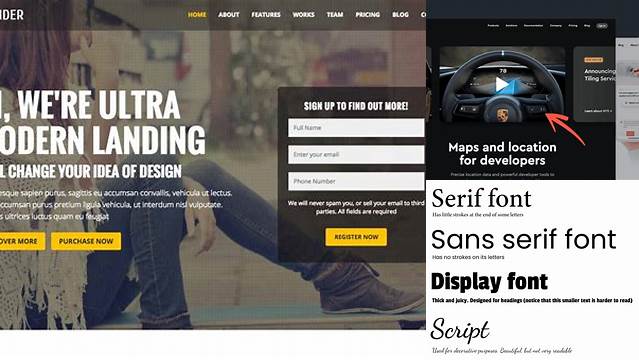
Best Fonts For Landing Page: Boost Conversions
Introduction: The Power of Typography in Landing Page Design
Hey guys! Let's dive into the crucial world of typography when it comes to crafting killer website landing pages. Choosing the right fonts isn't just about making things look pretty; it's about creating a user experience that's both engaging and effective. Think of fonts as the voice of your brand – they communicate personality, set the tone, and ultimately, influence whether a visitor sticks around or bounces. So, if you're looking to boost conversions and make a lasting impression, mastering the art of font selection is a must.
Typography is a cornerstone of design, playing a pivotal role in how your message is perceived. The fonts you select influence readability, scannability, and the overall aesthetic appeal of your landing page. A well-chosen font can guide the user's eye, highlight key information, and create a visual hierarchy that makes your content easily digestible. Conversely, a poorly chosen font can lead to a confusing and frustrating experience, driving potential customers away. In essence, typography is not just about aesthetics; it's about communication. It’s about making sure your message is not only seen but also felt and understood. The right font aligns with your brand's identity, reinforcing its values and personality. Imagine a sleek, modern tech company using a whimsical, handwritten font – it just wouldn't fit, would it? Consistency in typography across your landing page, and indeed your entire website, builds brand recognition and trustworthiness. When your brand has a clear visual voice, it's easier for your audience to connect with you. Let's also talk about the emotional impact of fonts. Different fonts evoke different feelings. A serif font might convey tradition and reliability, while a sans-serif font often feels modern and clean. A script font can add a touch of elegance or creativity. Understanding these nuances allows you to select fonts that resonate with your target audience and reinforce the emotions you want to evoke. For instance, a landing page for a luxury product might use a sophisticated serif font to convey elegance and exclusivity, while a landing page for a tech startup might opt for a clean, sans-serif font to project innovation and simplicity. Finally, consider the technical aspects of font selection. Not all fonts are created equal when it comes to web performance. Some fonts can significantly slow down your page load time, which is a major no-no in today's fast-paced digital world. Choosing web-safe fonts or optimizing your font files is crucial for ensuring a smooth and speedy user experience. So, let’s not underestimate the power of typography. It's an essential element of landing page design that requires careful consideration and strategic decision-making. Get it right, and you'll be well on your way to creating landing pages that convert!
Understanding Font Types: Serif, Sans-Serif, and More
Okay, let's break down the different types of fonts out there. Knowing the difference between serif, sans-serif, and other font categories is key to making informed decisions for your landing page. Each type has its own personality and best-use cases, so let's get acquainted!
Let’s start with serif fonts. These fonts are characterized by small decorative strokes, or “serifs,” at the end of each letter. Think of classic fonts like Times New Roman or Georgia. Serif fonts often convey a sense of tradition, authority, and sophistication. They're frequently used in headlines, body text in print, and websites aiming for a more formal or classic feel. On a landing page, a serif font can add a touch of elegance and trustworthiness, making it a great choice for brands that want to project a sense of history or reliability. For example, if you're designing a landing page for a financial institution or a luxury brand, a well-chosen serif font can reinforce your credibility and sophistication. The serifs themselves can also subtly guide the reader’s eye, making long passages of text easier to read in print. However, it's worth noting that serif fonts can sometimes appear cluttered on screens, especially at smaller sizes or lower resolutions. That's why it's essential to choose a serif font that's specifically designed for web use, with clear and well-defined characters that maintain readability even at smaller sizes. Good examples of web-friendly serif fonts include Merriweather, Playfair Display, and Roboto Slab. When using a serif font on your landing page, consider pairing it with a sans-serif font for headings or call-to-action buttons to create a visual contrast and hierarchy. This combination can help to draw the user's attention to the most important elements of your page while maintaining an overall sense of elegance and professionalism.
Now, let's move on to sans-serif fonts. As the name suggests, these fonts don't have the little decorative strokes that serif fonts do. They're clean, modern, and often considered more readable on screens. Popular sans-serif fonts include Arial, Helvetica, and Open Sans. Sans-serif fonts are fantastic for websites, particularly for body text and headlines where clarity is crucial. Their simplicity makes them easy to read, even at small sizes, and they lend a contemporary feel to your design. A landing page that uses a sans-serif font often projects a sense of innovation, efficiency, and approachability. This makes them a popular choice for tech companies, startups, and businesses that want to convey a forward-thinking image. The clean lines of sans-serif fonts also make them highly versatile. They pair well with a variety of other font styles and can be used effectively in a wide range of designs, from minimalist layouts to more complex and visually rich pages. When selecting a sans-serif font for your landing page, consider the overall tone and message you want to convey. A font like Open Sans, for example, is highly readable and neutral, making it a great choice for body text and longer passages. A bolder, more geometric sans-serif font, such as Montserrat or Bebas Neue, can be used for headings and call-to-action buttons to create a strong visual impact. Remember, the key is to choose a font that not only looks good but also aligns with your brand’s personality and the needs of your audience. Sans-serif fonts are also an excellent choice for mobile-friendly designs, as their clarity and readability make them easy to view on smaller screens. This is particularly important for landing pages, where a seamless mobile experience is crucial for driving conversions.
Beyond serif and sans-serif, we have a world of other font categories to explore, each with its unique characteristics and applications. Script fonts, for instance, mimic handwriting and can add a touch of elegance, creativity, or personality to your landing page. They're often used for logos, headings, or accents, but should be used sparingly to avoid readability issues. Imagine a script font used for the name of a wedding photography business or a handwritten-style font for a bakery's logo – they can add a personal and inviting touch. However, it's crucial to remember that script fonts can be difficult to read in large blocks of text or at smaller sizes. Therefore, they are best reserved for short, impactful elements where legibility is less of a concern. When using a script font, consider pairing it with a simple sans-serif font for the body text to ensure a balance between visual interest and readability.
Then there are display fonts, which are designed to be eye-catching and attention-grabbing. These fonts come in a wide range of styles, from bold and geometric to playful and whimsical. Display fonts are perfect for headings, banners, and other prominent elements where you want to make a statement. However, like script fonts, they should be used judiciously, as they can overwhelm a design if overused. Think of a vintage-inspired display font for a retro-themed landing page or a bold, futuristic font for a tech startup’s website. The key is to choose a display font that aligns with your brand’s personality and the overall aesthetic of your landing page. When using a display font, ensure that it contrasts effectively with the other fonts on your page and that it doesn't detract from the overall readability of your content.
Finally, let's not forget about monospace fonts. These fonts have characters that each take up the same amount of horizontal space, giving them a distinct, typewriter-like appearance. Monospace fonts are often used for code snippets, technical documentation, or to create a retro or industrial feel. While they aren't typically used for body text, they can be effective for specific elements or to add a unique touch to your design. For instance, a landing page for a software development company might use a monospace font for code examples or to highlight technical specifications. In summary, understanding the different font types is essential for creating effective landing pages. Each font category has its unique strengths and weaknesses, and the best choice depends on your brand’s personality, the message you want to convey, and the overall design aesthetic you’re aiming for. By carefully considering the characteristics of serif, sans-serif, script, display, and monospace fonts, you can create a visually compelling and highly readable landing page that resonates with your audience.
Best Font Practices for Landing Page Conversion
Now, let's talk about the best practices for choosing fonts that actually boost your landing page's conversion rates. It's not just about picking a font you like; it's about picking fonts that work together to create a seamless and effective user experience. Let’s dive in!
One of the most crucial aspects of font selection for landing page conversion is readability. If your visitors can't easily read your content, they're not going to stick around, no matter how compelling your offer is. Readability encompasses several factors, including font size, line height, letter spacing, and the overall clarity of the font itself. When choosing a font for your body text, opt for one that is clean and easy to read at a variety of sizes. Sans-serif fonts, such as Open Sans, Roboto, and Lato, are often excellent choices for body text due to their simplicity and clarity. However, some serif fonts, like Merriweather and Georgia, can also be highly readable, especially when designed specifically for web use. The key is to test your font choices on different devices and screen sizes to ensure that they remain legible in all contexts. Pay close attention to how the font renders on mobile devices, as a significant portion of your traffic likely comes from mobile users. In addition to font choice, consider the size of your text. Body text should generally be between 16 and 18 pixels for optimal readability on desktop screens, and slightly larger on mobile devices. Headings should be proportionally larger to create a clear visual hierarchy and draw the user’s attention to the most important information. Line height, or the spacing between lines of text, also plays a crucial role in readability. A line height that is too tight can make text feel cramped and difficult to read, while a line height that is too wide can make it hard for the eye to track from one line to the next. A good rule of thumb is to set your line height to around 1.5 times the font size. Letter spacing, or the space between individual characters, can also affect readability. Slightly increasing letter spacing can improve the clarity of a font, especially for headings and larger text elements. By prioritizing readability in your font choices, you can ensure that your visitors can easily digest your message, which is a critical step in driving conversions. A clear and readable landing page conveys professionalism and builds trust with your audience, making them more likely to engage with your content and take the desired action.
Another key aspect of font selection for landing page conversion is font pairing. Choosing the right combination of fonts can create a visual harmony that enhances the overall aesthetic appeal of your page and guides the user’s eye effectively. The general rule of thumb is to use no more than two or three different fonts on a single landing page. This helps to maintain a consistent and professional look while still allowing for visual contrast and emphasis. When pairing fonts, it's often a good idea to choose one font for headings and another for body text. This creates a clear visual hierarchy and makes it easier for users to scan and understand your content. A common approach is to pair a sans-serif font for headings with a serif font for body text, or vice versa. For example, you might pair a bold sans-serif font like Montserrat for headings with a readable serif font like Merriweather for body text. This combination provides a good balance between visual impact and readability. Another popular pairing is to use different weights of the same font family. For instance, you could use a bold version of Open Sans for headings and a regular version for body text. This creates a cohesive look while still providing sufficient visual contrast. When selecting font pairings, consider the overall tone and message you want to convey. Different font combinations evoke different feelings, so it's important to choose pairings that align with your brand’s personality and the purpose of your landing page. A clean and modern design might benefit from a pairing of two sans-serif fonts, while a more traditional or elegant design might call for a serif and sans-serif combination. Experiment with different pairings and test them with your target audience to see what resonates best. There are also many online tools and resources available that can help you find effective font pairings. These tools often provide suggestions based on font classifications, styles, and historical usage, making it easier to create a visually appealing and effective design.
Beyond readability and font pairing, consider the emotional impact of your font choices. Different fonts evoke different feelings and associations, so it's important to choose fonts that align with your brand’s personality and the message you want to convey. A font that feels serious and professional might be perfect for a landing page promoting financial services, while a more playful and whimsical font might be better suited for a page advertising children’s toys. When selecting fonts, think about the emotions you want to evoke in your visitors. Do you want them to feel confident and secure? Excited and energized? Calm and reassured? The fonts you choose can play a significant role in shaping these emotions. For example, a classic serif font like Times New Roman might convey a sense of tradition, authority, and reliability. This makes it a good choice for brands that want to project a sense of stability and trustworthiness. On the other hand, a clean and modern sans-serif font like Helvetica might evoke feelings of innovation, efficiency, and approachability. This makes it a popular choice for tech companies and startups. Script fonts can add a touch of elegance, creativity, or personality to your landing page. However, they should be used sparingly, as they can be difficult to read in large blocks of text. A script font might be perfect for a heading or a call-to-action button, but it's generally not a good choice for body text. Display fonts, which are designed to be eye-catching and attention-grabbing, can be used to make a bold statement. However, like script fonts, they should be used judiciously to avoid overwhelming the design. When choosing fonts based on their emotional impact, consider your target audience and their preferences. What fonts are they likely to respond to? What emotions do you want to evoke in them? By carefully considering these factors, you can choose fonts that not only look good but also effectively communicate your message and resonate with your audience. Remember, your landing page is an opportunity to make a strong first impression, and the fonts you choose play a crucial role in shaping that impression.
Finally, test your fonts! What works in theory might not work in practice. A/B testing different font combinations can give you valuable insights into what resonates best with your audience. Don’t be afraid to experiment and see what drives the most conversions.
Font Resources and Tools
Alright, so where can you actually find these awesome fonts and what tools can help you put them to work? There's a ton of resources out there, both free and paid, to help you create the perfect typographic landscape for your landing page. Let's explore some of the best!
First off, let's talk about Google Fonts. This is a fantastic resource that offers a massive library of free, open-source fonts that are perfect for web use. Google Fonts is a go-to resource for designers and developers because it provides a vast selection of high-quality fonts that are easy to integrate into any website. The fonts are meticulously curated and optimized for web performance, ensuring that they load quickly and render correctly across different browsers and devices. One of the biggest advantages of using Google Fonts is its ease of use. You can simply browse the library, select the fonts you like, and embed them into your website with a few lines of code. Google Fonts also provides detailed information about each font, including its designer, style classifications, and popular pairings, making it easier to choose fonts that align with your design goals. The library is continually updated with new fonts, so there's always something fresh and exciting to discover. Whether you're looking for a classic serif font, a modern sans-serif font, or a unique display font, Google Fonts has something to offer. In addition to the vast selection of fonts, Google Fonts also provides tools for previewing and testing fonts, allowing you to see how they look in different contexts and at different sizes. You can customize the text, size, and color of the preview to get a clear idea of how the font will look on your landing page. This is a valuable feature that helps you make informed decisions and avoid font choices that might not work well in your design. Google Fonts also integrates seamlessly with popular web design platforms and content management systems, such as WordPress, making it even easier to incorporate these fonts into your website. With its extensive library, ease of use, and commitment to quality, Google Fonts is an indispensable resource for anyone looking to improve the typography of their landing page. It's a cost-effective and reliable solution that can help you create a visually appealing and highly readable design.
Then there's Adobe Fonts, which is part of the Adobe Creative Cloud subscription. Adobe Fonts provides access to thousands of high-quality fonts from leading foundries, making it a premium option for designers who demand the best. One of the standout features of Adobe Fonts is its seamless integration with Adobe Creative Cloud applications, such as Photoshop, Illustrator, and InDesign. This means you can easily access and use these fonts in your design projects without having to download or install them separately. The fonts are available for both desktop and web use, giving you the flexibility to use them in a variety of contexts. The library at Adobe Fonts is incredibly diverse, offering a wide range of styles, classifications, and languages. Whether you're looking for a classic serif font, a modern sans-serif font, a decorative script font, or a unique display font, you're sure to find something that meets your needs. Adobe Fonts also includes exclusive fonts from renowned type designers and foundries, giving you access to unique and high-quality typography that you won't find anywhere else. In addition to the vast font library, Adobe Fonts provides advanced search and filtering options, making it easy to find the perfect font for your project. You can filter fonts by style, classification, weight, width, and other criteria, allowing you to narrow down your choices and find the ideal font for your specific design requirements. Adobe Fonts also offers detailed information about each font, including its designer, style classifications, and usage recommendations, helping you make informed decisions and create effective typographic designs. The service is constantly updated with new fonts, ensuring that you always have access to the latest and greatest typography. If you're a professional designer or someone who is serious about typography, Adobe Fonts is an excellent investment. The subscription-based model provides access to a vast library of high-quality fonts, seamless integration with Adobe Creative Cloud applications, and advanced search and filtering options, making it a powerful tool for creating visually stunning and effective designs. With its commitment to quality and innovation, Adobe Fonts is a valuable resource for anyone looking to elevate their typography.
Beyond these big players, there are also sites like Font Squirrel and MyFonts, which offer a mix of free and paid fonts. Font Squirrel is a great resource for finding high-quality free fonts that are licensed for commercial use, making it a valuable tool for designers on a budget. The site carefully curates its collection, ensuring that all the fonts meet a high standard of quality and are legally available for commercial projects. One of the standout features of Font Squirrel is its Font Identifier tool, which allows you to upload an image of a font and identify it. This is incredibly useful if you come across a font that you like but don't know the name of. The tool uses advanced image recognition technology to analyze the font and provide a list of possible matches. Font Squirrel also offers a Webfont Generator, which helps you create web-optimized versions of your fonts. This is essential for ensuring that your fonts load quickly and render correctly on different browsers and devices. The generator supports a variety of font formats, including WOFF, WOFF2, EOT, and SVG, allowing you to create a comprehensive set of web fonts for your project. The site's interface is clean and easy to navigate, making it simple to browse and discover new fonts. You can filter fonts by style, classification, and other criteria, making it easier to find the perfect font for your needs. Font Squirrel also provides detailed information about each font, including its license, designer, and usage recommendations. If you're looking for high-quality free fonts for your commercial projects, Font Squirrel is definitely worth checking out. Its curated collection, Font Identifier tool, and Webfont Generator make it a valuable resource for designers of all levels.
MyFonts, on the other hand, is a leading marketplace for commercial fonts, offering a vast selection of typography from independent foundries and type designers. The site is known for its extensive library, user-friendly interface, and helpful customer support. One of the standout features of MyFonts is its WhatTheFont tool, which, like Font Squirrel's Font Identifier, allows you to upload an image of a font and identify it. This is a powerful tool for designers who need to find a specific font or want to match a font used in an existing design. MyFonts offers a wide range of search and filtering options, making it easy to find the perfect font for your project. You can filter fonts by style, classification, weight, width, and other criteria, allowing you to narrow down your choices and find the ideal typography for your needs. The site also provides detailed information about each font, including its designer, style classifications, and usage recommendations. In addition to its vast font library, MyFonts offers a variety of resources and tools for designers, including articles, tutorials, and case studies. These resources can help you learn more about typography and improve your design skills. MyFonts is a go-to resource for professional designers and typographers, but it's also a great option for anyone who is looking for high-quality commercial fonts. The site's extensive library, user-friendly interface, and helpful tools make it a valuable resource for creating visually stunning and effective designs. Whether you're working on a website, a print project, or any other type of design, MyFonts has the typography you need.
As for tools, check out online font pairing generators and websites that let you preview fonts in different contexts. These can be lifesavers when you're trying to visualize how a font will look on your landing page. Some popular tools include FontPair, which helps you find effective font combinations, and Typecast, which allows you to design and test typography in a browser-based environment. FontPair is a simple yet powerful tool that helps you find complementary fonts for your design projects. The site features a curated collection of font pairings, showcasing different combinations of serif, sans-serif, and other font styles. Each pairing includes the names of the fonts and a preview of how they look together, making it easy to find a combination that suits your needs. FontPair also allows you to filter pairings by classification, such as serif-sans serif, sans serif-sans serif, and more, helping you narrow down your choices and find the perfect typography for your project. The site is incredibly user-friendly, with a clean and intuitive interface that makes it easy to browse and discover new font combinations. Whether you're a professional designer or a beginner, FontPair is a valuable resource for creating visually appealing and effective typographic designs. By exploring different font pairings, you can learn more about typography and develop your eye for design.
Typecast, on the other hand, is a more comprehensive tool that allows you to design and test typography in a realistic browser environment. The platform provides a wide range of features for creating and experimenting with typography, including font selection, sizing, spacing, and styling options. One of the standout features of Typecast is its ability to simulate how fonts will render in different browsers and on different devices. This is crucial for ensuring that your typography looks consistent and legible across all platforms. Typecast also allows you to create typographic style guides, which can be used to document and share your font choices with clients and collaborators. The platform provides a collaborative workspace where you can share your designs, get feedback, and iterate on your typography. Typecast is a powerful tool for professional designers and typographers who need to create and test complex typographic designs. The platform's comprehensive features and realistic browser simulation make it an invaluable resource for ensuring that your typography looks its best in any context. Whether you're working on a website, a web application, or any other type of digital design, Typecast can help you create visually stunning and effective typography.
With all these resources at your fingertips, there's no excuse for settling for subpar fonts on your landing page! Take the time to explore, experiment, and find the perfect typographic voice for your brand.
Conclusion: Make Your Fonts Work for You
So, there you have it! Fonts are a fundamental part of your landing page's success. By understanding font types, following best practices, and leveraging the available resources, you can choose fonts that not only look great but also drive conversions. Remember, your fonts are part of your brand's voice – make sure they're saying the right things! Happy designing!
Choosing the right fonts for your website landing page is an art and a science. It requires a deep understanding of typography principles, an awareness of your brand's personality, and a strategic approach to user experience. Your font choices can significantly impact how visitors perceive your brand and whether they convert into customers. Therefore, investing time and effort into selecting the right fonts is an investment in the success of your online presence. Let’s recap the key takeaways to ensure your landing page typography is on point.
First and foremost, understand the different font types. Serif fonts convey tradition and formality, while sans-serif fonts offer a modern and clean aesthetic. Script fonts add elegance and personality, and display fonts are perfect for grabbing attention. Knowing the characteristics of each font type allows you to choose fonts that align with your brand's image and the message you want to communicate. When selecting fonts, consider the overall tone and style of your landing page. Is it sleek and minimalist, or warm and inviting? Your font choices should complement the design and create a cohesive visual experience. A well-designed landing page uses typography to guide the user's eye, highlight important information, and create a clear hierarchy of content. Secondly, prioritize readability. No matter how beautiful a font is, it's useless if your visitors can't read it easily. Use legible fonts, appropriate font sizes, and sufficient line spacing to ensure a comfortable reading experience. The readability of your landing page directly impacts user engagement and conversion rates. If visitors struggle to read your content, they are likely to leave your site. Choose fonts that are optimized for web use, with clear and well-defined characters that maintain readability even at smaller sizes. Sans-serif fonts are often a good choice for body text due to their simplicity and clarity, but some serif fonts can also be highly readable when designed for the web. Pay attention to font contrast, ensuring that your text stands out against the background. Insufficient contrast can make text difficult to read, especially for users with visual impairments. A clear and readable landing page builds trust with your audience and makes them more likely to engage with your content. Thirdly, master the art of font pairing. Combining different fonts strategically can enhance visual interest and create a balanced design. A common approach is to pair a heading font with a body font that complements its style. Limit your font choices to two or three fonts to maintain consistency and avoid overwhelming your design. Effective font pairings create a visual hierarchy, making it easier for users to scan and understand your content. A well-chosen font pairing can also reinforce your brand’s personality and create a memorable impression. Experiment with different combinations of serif and sans-serif fonts, or explore using different weights and styles within the same font family. Online tools and resources can help you find effective font pairings, providing suggestions based on font classifications, styles, and historical usage. Remember, the goal is to create a harmonious and visually appealing design that enhances the overall user experience. Finally, leverage font resources and tools. Google Fonts and Adobe Fonts offer vast libraries of high-quality fonts for web use. These platforms provide a wide range of font styles and classifications, making it easy to find the perfect typography for your landing page. Font pairing tools and font preview websites can also help you visualize your font choices in different contexts. These tools allow you to experiment with different font combinations and see how they look on your landing page before you implement them. By using these resources, you can ensure that your font choices align with your design goals and create a visually compelling and effective landing page. Don’t be afraid to try out different fonts and font pairings to see what works best for your brand. The key is to be intentional and strategic in your font choices, always keeping in mind the impact they have on user experience and conversion rates.
In conclusion, your font choices are a critical component of your landing page's success. By understanding font types, prioritizing readability, mastering font pairing, and leveraging available resources, you can create a typographic landscape that drives conversions and reinforces your brand identity. Remember, fonts are more than just text – they are a powerful communication tool that can significantly impact your audience's perception of your brand. Choose them wisely, and let your fonts work for you.